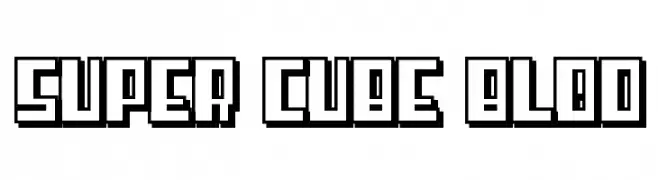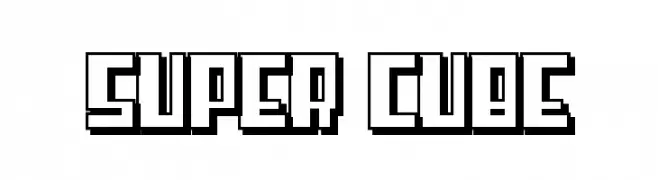
A bold, geometric font with a three-dimensional cube-like design.
A bold, geometric font with a 3D cube-like appearance, ideal for modern and futuristic designs.